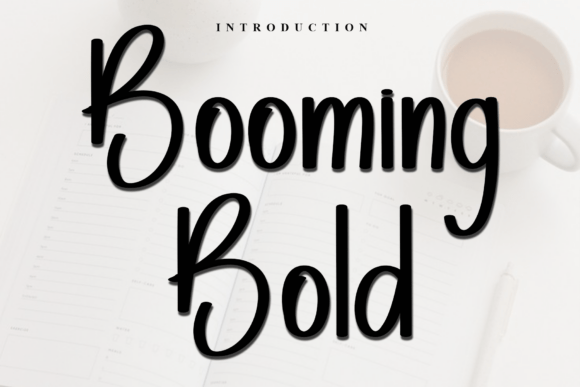
The Designer’s Delight: Booming Font
I still remember the frustration of working on a design project, hours spent perfecting every detail, only to be held back by one thing: the font. It was a client request for a unique, eye-catching font that would make their brand stand out. After scouring the internet, I stumbled upon the Booming font, and it was love at first sight! ✨ In this article, I’ll share my experience with this beautiful font, its features, and how to make the most of it in your designs.
• 💫 Unique and distinctive strokes: Booming font has a soft, special touch that sets it apart from other fonts.
• 🎨 Versatility: Its natural style makes it perfect for various design projects, crafts, and creative works.
• 📚 Wide range of characters: Booming font offers a variety of characters, ensuring you have plenty of options for your designs.
While Booming font is amazing, there are a few things to keep in mind: 🤔
• ⚠️ Limited availability of certain characters: Some special characters might not be available, but this is rare.
• ⚠️ Requires OpenType features: To get the most out of Booming font, you’ll need to use OpenType features, which might require some technical know-how.
The Story Behind Booming Font
Booming font was designed with the intention of creating a unique, eye-catching font that would add a special touch to designs. The designer aimed to craft a font that was both beautiful and versatile, making it perfect for a wide range of creative projects. While the designer’s story might be shrouded in mystery, their creation has certainly made an impact on the design community! 🌟
Q: What makes Booming font unique?
A: Booming font’s distinctive strokes and natural style set it apart from other fonts, making it perfect for designs that require a special touch.